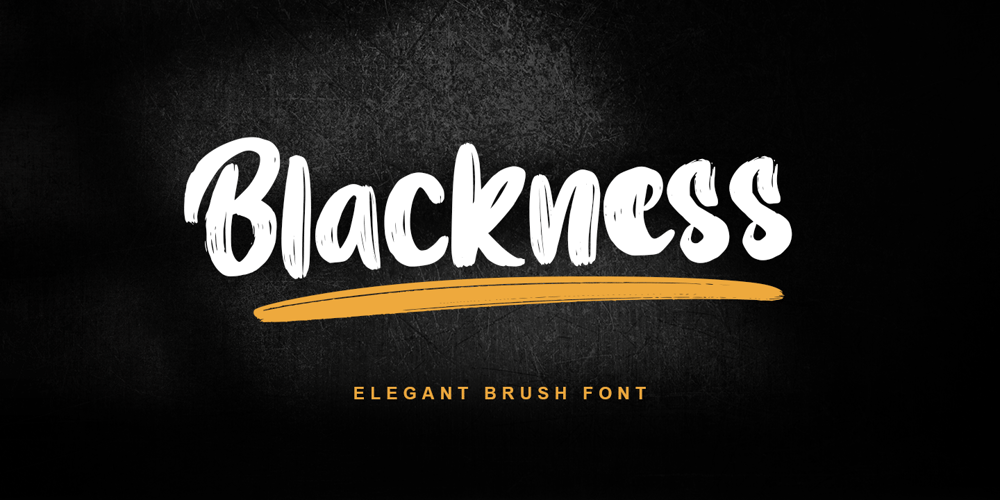
Blackness Font Family was designed by Thomas Aradea and published by Letterara. Blackness contains 2 styles and family package options. Blackness is a strong original handwritten font with a unique feel. Natural and elegant, cursive, legible script font which can be used on a wide variety of designs such as headlines, titles, headings, logos, branding, posters, books, and any other creative design. It will add a unique spark to any design project that you wish to create! This font is PUA encoded which means you can access all of the amazing glyphs and ligatures with ease!